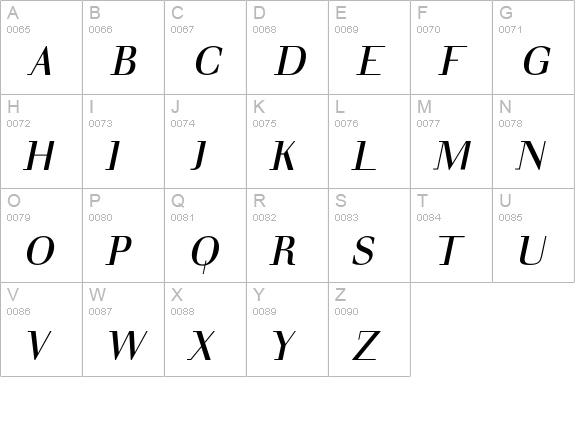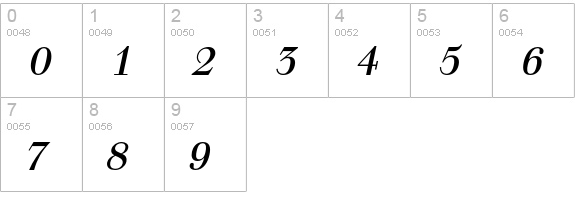
Seriar-Italic Font Details
Seriar-Italic is a distinctive, italic variant in the Seriar typeface family \xE2\x80\x94 well suited to design and typography projects.
Seriar-Italic font is a stunning display of elegance and refinement. Its sleek and sophisticated curves create a mesmerizing visual experience, making it the perfect choice for projects that require a touch of class and sophistication. This font exudes a timeless charm that effortlessly captures attention and leaves a lasting impression. Each letter is meticulously crafted, with delicate strokes that flow seamlessly, creating a harmonious balance between boldness and grace. Seriar-Italic font is not only visually appealing but also highly versatile. It can be used in a wide range of design projects, from branding and packaging to editorial layouts and digital media. Its versatility allows it to adapt to various styles and contexts, adding a touch of elegance and professionalism to any design. One of the most remarkable features of Seriar-Italic font is its availability for free. Yes, you read that right! This exquisite font can be freely downloaded at FontsMarket.com. This makes it accessible to designers, artists, and enthusiasts who are looking for a high-quality font without breaking the bank. Whether you are a seasoned designer or just starting your creative journey, Seriar-Italic font is a must-have in your collection. Its timeless beauty, versatility, and the fact that it is available for free make it an invaluable asset for any design project. So go ahead and download Seriar-Italic font today from FontsMarket.com, and let your creativity soar to new heights.